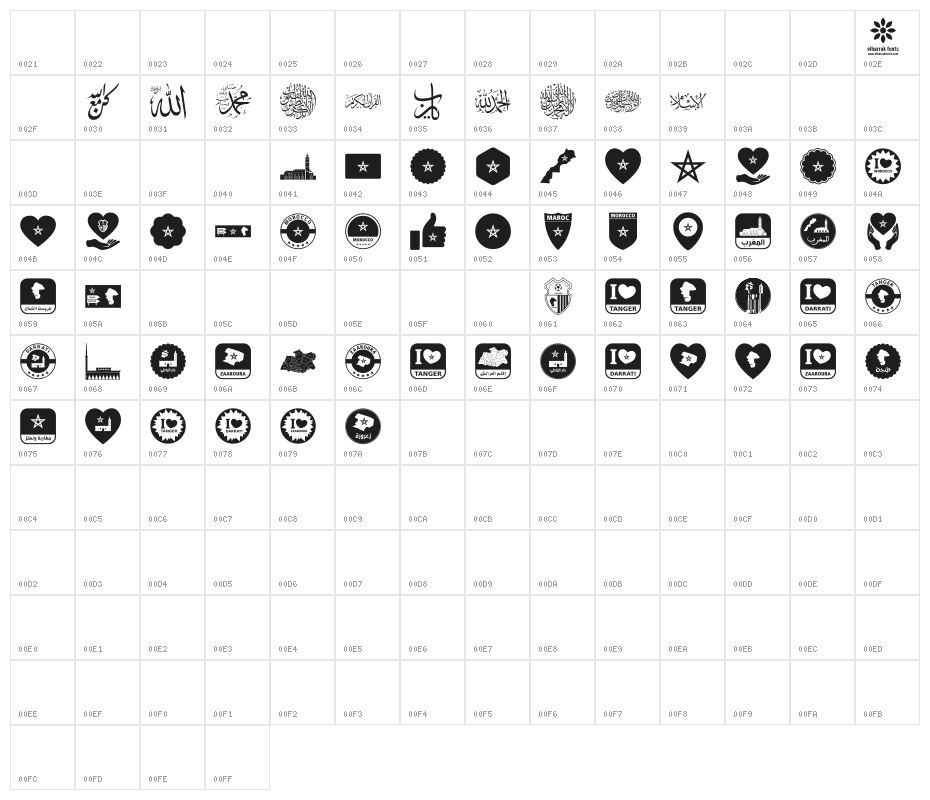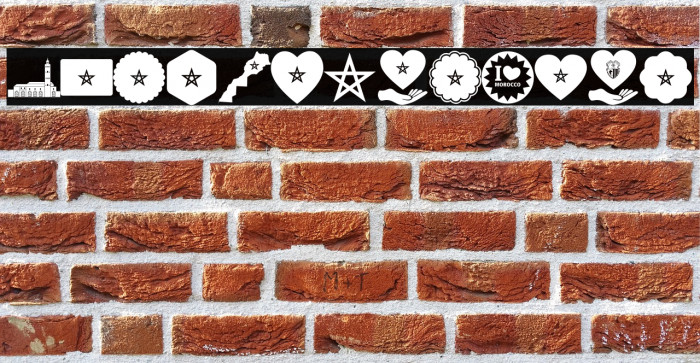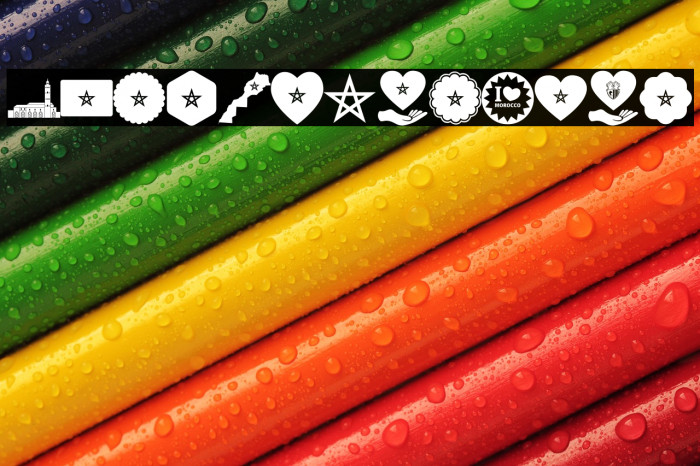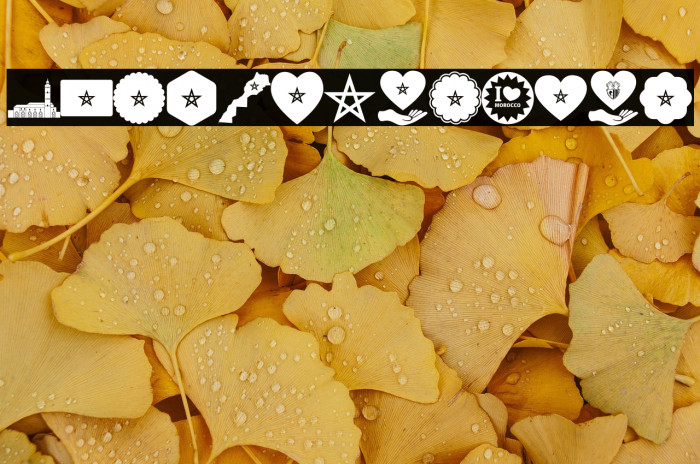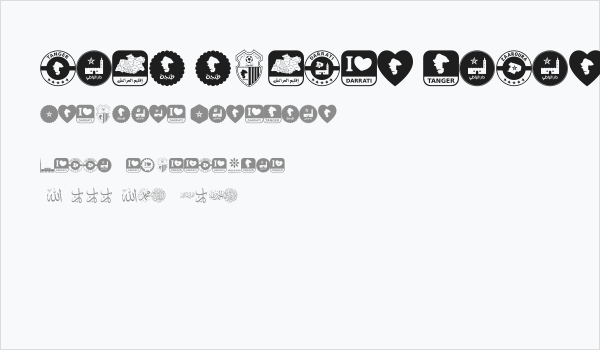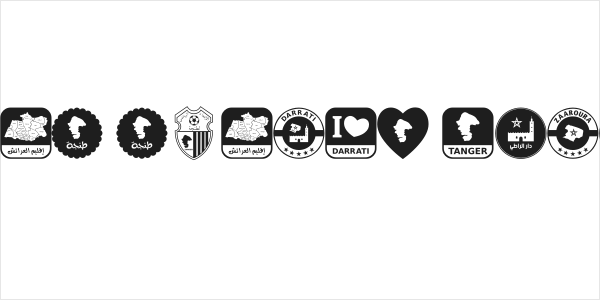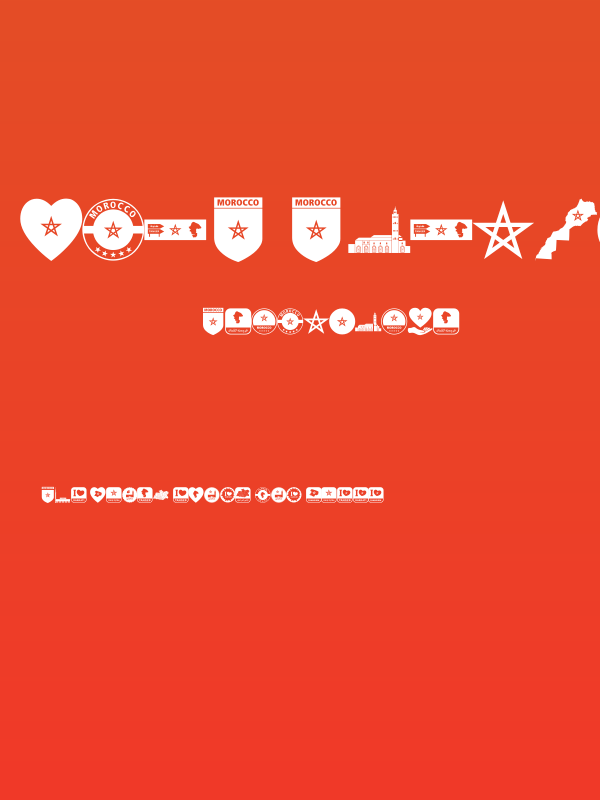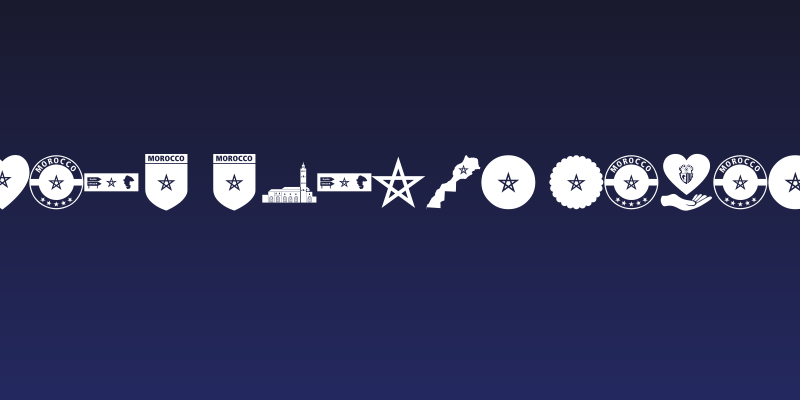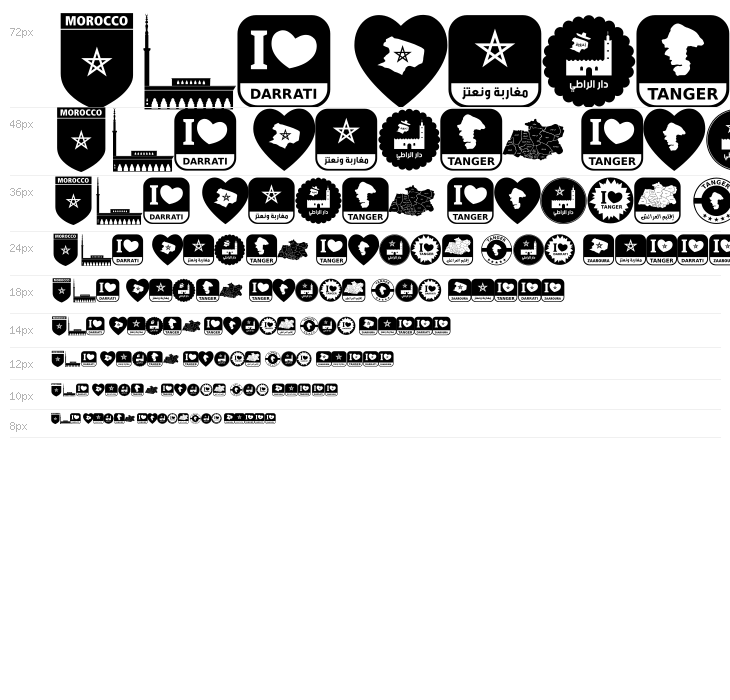
font tanger color Font
font tanger color Description
This collection features a variety of symbols and icons, primarily showcasing cultural and regional motifs related to Morocco. The designs include hearts, stars, maps, and Arabic calligraphy, often enclosed in circular or shield-like shapes. The imagery is bold and filled with solid black, creating a strong visual impact. The icons are diverse, ranging from simple shapes to intricate calligraphic designs, reflecting a blend of modern and traditional aesthetics. The use of Arabic script adds a cultural depth, making it suitable for projects that aim to highlight Moroccan or Arabic themes.
| Use Case | Logos, Cultural projects, Merchandise |
| Proposed Projects | Ideal for cultural branding, tourism materials, educational resources, and themed merchandise. |